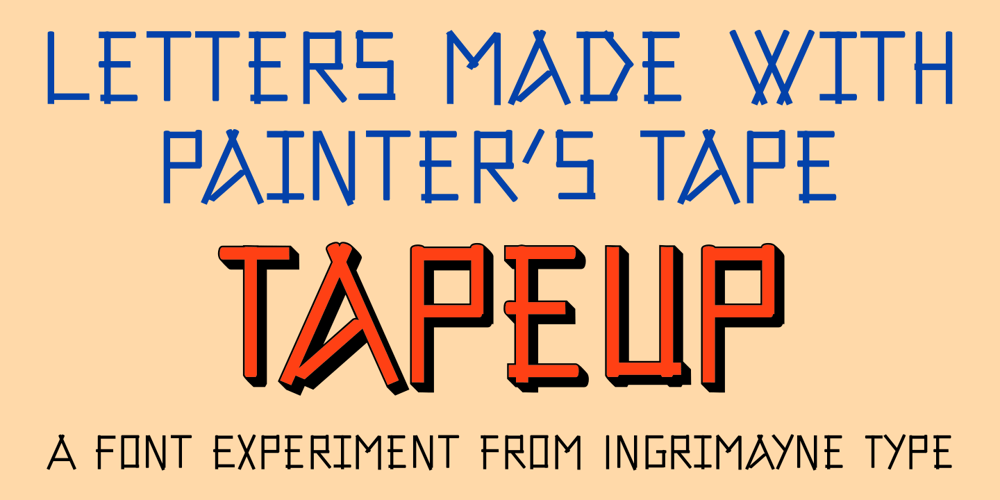
Tape Up
Tape Up font
Tape Up Font Family was designed by Robert Schenk and published by Ingrimayne Type. Tape Up contains 6 styles and family package options. The letters in TapedUp are constructed from straight pieces of what could be masking tape. The letters have a unsophisticated or unpolished quality to them. The typeface is caps-only but many of the shapes on the lower-case keys differ from those on the upper-case keys. It was formed with a template used for several letterbat fonts and also typefaces Rumpled and Tinkerer. The family has six styles: regular, bold, shadowed, oblique. bold oblique, and shadowed oblique.